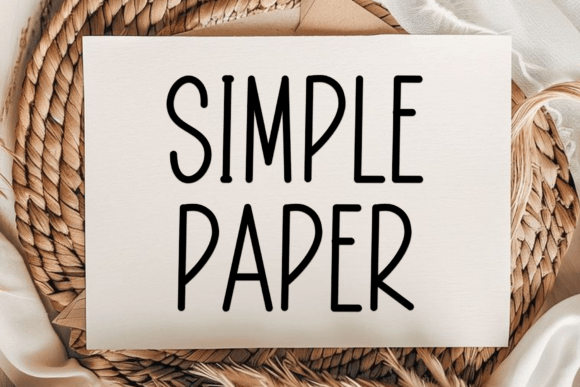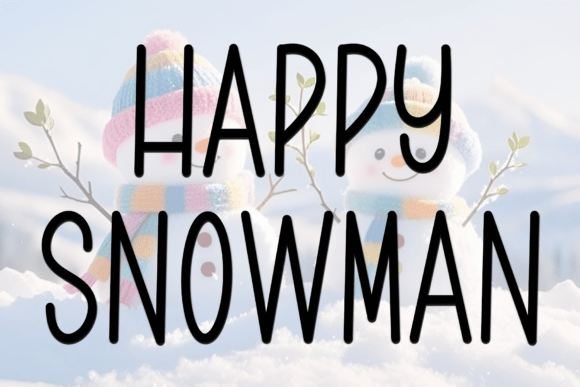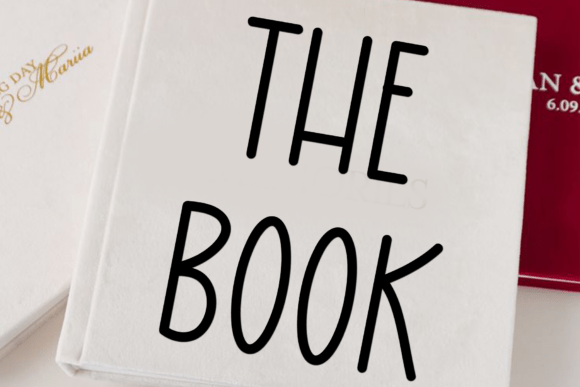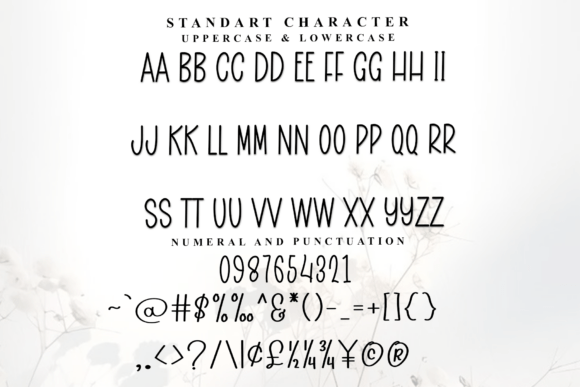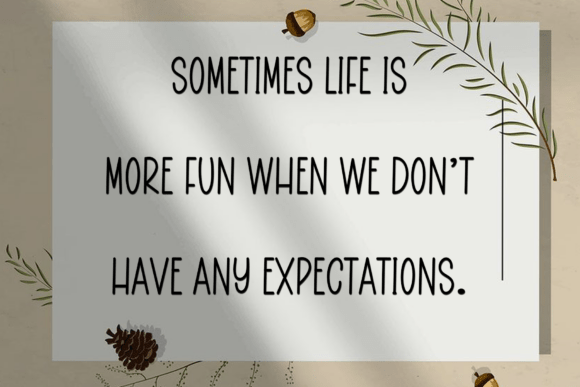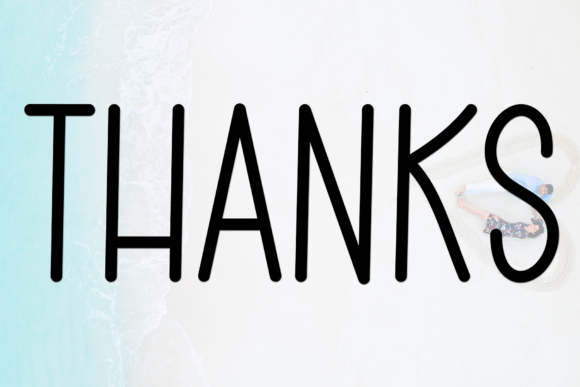
Introducing Comic Font: The Perfect Choice for Creative Projects
Are you a designer, crafter, or creative looking for a font that adds a touch of personality to your work? Look no further than Comic Font, a beautiful and eye-catching typeface designed with a soft, unique touch. Its distinctive strokes give it a special character, making it meaningful and versatile for future use.
What Makes Comic Font Special?
Comic Font is not just another font – it’s a game-changer for anyone looking to add some flair to their designs. Its unique and soft touch sets it apart from other fonts, making it perfect for a wide range of creative projects. Whether you’re working on a design project, crafting, or creating digital art, Comic Font is the ideal choice.
Key Features of Comic Font
- Distinctive Strokes: Comic Font’s strokes are what make it truly special. Its unique character gives it a personality that will make your designs stand out.
- Versatile: With various characters, Comic Font is perfect for a wide range of creative projects, from design and crafting to digital art and more.
- Natural Font Style: Comic Font’s natural font style makes it ideal for creating products that appeal to a wide range of audiences.
Comic Font is a dream come true for designers and crafters. Its unique character and versatility make it perfect for a wide range of projects, from:
- Digital Art: Add a touch of personality to your digital art with Comic Font.
- Crafting: Use Comic Font to create unique and eye-catching crafts, such as handmade cards, invitations, and more.
- Design Projects: Comic Font is perfect for design projects, including branding, advertising, and more.
Why Choose Comic Font?
So, why choose Comic Font over other fonts? Here are just a few reasons:
- Unique Character: Comic Font’s unique character sets it apart from other fonts, making it perfect for designers and crafters looking for something special.
- Wide Range of Applications: Comic Font is perfect for a wide range of creative projects, from digital art to crafting and design.
In conclusion, Comic Font is a beautiful and eye-catching font that is perfect for designers, crafters, and creatives looking to add a touch of personality to their work. Its unique character, versatility, and compatibility make it an ideal choice for a wide range of creative projects. Whether you’re working on digital art, crafting, or design projects, Comic Font is the perfect choice. So why wait? Give Comic Font a try today and see the difference it can make in your designs!
Get Creative with Comic Font!
Ready to get creative with Comic Font? Here are some tips to get you started:
- Experiment with Different Sizes: Try using Comic Font in different sizes to see how it looks in various contexts.
- Pair it with Other Fonts: Experiment with pairing Comic Font with other fonts to create unique and eye-catching combinations.
- Use it in Different Colors: Try using Comic Font in different colors to add some extra flair to your designs.